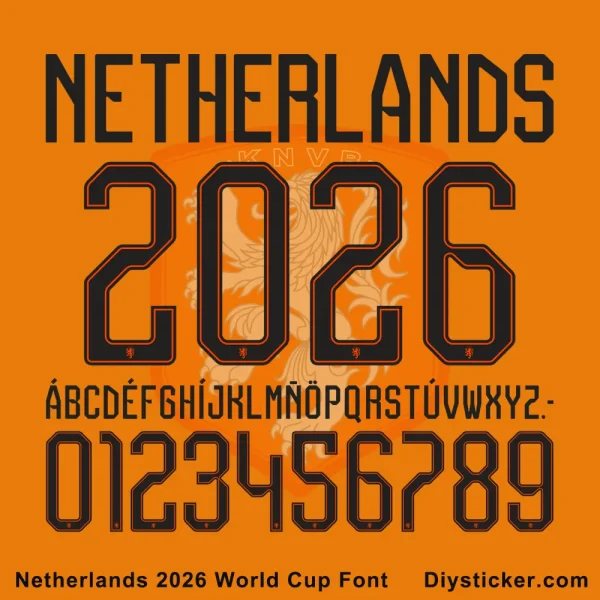
Netherlands 2026 World Cup Font Download
Embrace the iconic Dutch football style with the Netherlands 2026 World Cup Font, a complete typography kit designed for the official kit of the tournament. Whether you’re creating custom jerseys, fan apparel, posters, or digital content, this font set delivers the exact style seen on the pitch.
This comprehensive package includes TTF, OTF, AI, CDR, and PDF vector files, ensuring full compatibility with professional design software and easy use for both print and digital projects. The clean, modern letterforms and numerals are crafted for precision and visibility, making them ideal for player names, numbers, and bold typographic layouts.
Designed for designers, sportswear creators, and football enthusiasts, this font kit offers unmatched versatility. Use it for:
Custom shirt printing and personalization
Promotional graphics and social media content
Stadium signage and event branding
Collectible memorabilia and fan merchandise